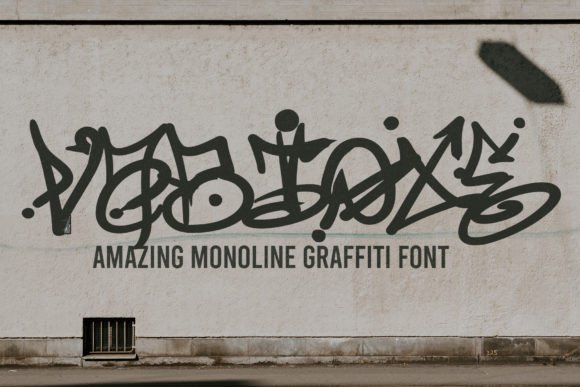
Vabioxe: Graffiti Font for Creative Expression
For anyone looking to add a bold, edgy touch to their designs, Vabioxe is a standout choice. This monoline graffiti font was crafted with the goal of making graffiti-style typography more accessible and versatile. Whether you're a designer, artist, or just someone who loves unique visual styles, Vabioxe offers a fresh way to express creativity.
What Makes Vabioxe Unique?
Vabioxe is designed with simplicity and functionality in mind. Its clean, monoline structure gives it a modern yet rebellious feel. Unlike traditional graffiti fonts that can be messy or hard to read, Vabioxe balances style with clarity. The uniform stroke width ensures readability while still maintaining the raw energy associated with street art.
This font is ideal for those who want to achieve a graffiti look without the complexity of hand-drawing each letter. It’s perfect for projects that need a strong visual identity but also require legibility, such as logos, packaging, and promotional materials.
Why Choose Vabioxe?
If you’re looking to create something that stands out, Vabioxe can help. Its distinctive style makes it perfect for branding that wants to communicate a sense of energy and individuality. From t-shirt designs to digital banners, this font adds a dynamic edge that can elevate any project.
One of the main reasons people choose Vabioxe is its adaptability. It works well across different platforms and media. Whether you're designing a poster for a local event or creating a logo for a new business, Vabioxe provides a consistent and eye-catching look.
Practical Uses for Vabioxe
Vabioxe isn’t just for artists. It has real-world applications that make it valuable for a wide range of users. For example, small business owners can use it to design eye-catching signs or packaging that grabs attention. Marketers might find it useful for creating social media graphics or advertisements that stand out in a crowded space.
Designers often use Vabioxe for mockups, especially when working on projects that require a gritty or urban aesthetic. It’s also popular among educators who want to create engaging materials for students, adding a creative flair to presentations or lesson plans.
Real-World Examples
Imagine a local café looking to update its branding. By using Vabioxe in their logo and menu designs, they can create a vibe that feels authentic and trendy. Similarly, a clothing brand could use this font on t-shirts to give their designs a streetwear edge that appeals to younger audiences.
Another example is a community bulletin board. Using Vabioxe for announcements or event flyers can make the content more visually appealing and easier to read at a glance. It’s also great for digital content, like YouTube thumbnails or Instagram posts, where a strong visual presence is key.
Things to Consider Before Using Vabioxe
Before diving into using Vabioxe, it’s important to consider your specific needs. While it’s highly versatile, it may not be the best fit for every project. If you’re aiming for a more formal or minimalist look, other fonts might be more appropriate.
Also, make sure to test the font in different sizes and contexts. What looks great on a large banner might not work as well on a small label. Always preview your designs to ensure the font meets your expectations.
Getting Started with Vabioxe
If you're unsure about how it will look in your project, try creating a few sample designs. This will help you understand how the font interacts with other elements and whether it aligns with your vision.
Conclusion
Vabioxe is more than just a font—it's a tool for creative expression. Its combination of style and practicality makes it a valuable asset for anyone involved in design, marketing, or personal projects. Whether you're a seasoned professional or just starting out, Vabioxe offers a way to bring a graffiti-inspired aesthetic to your work with ease.